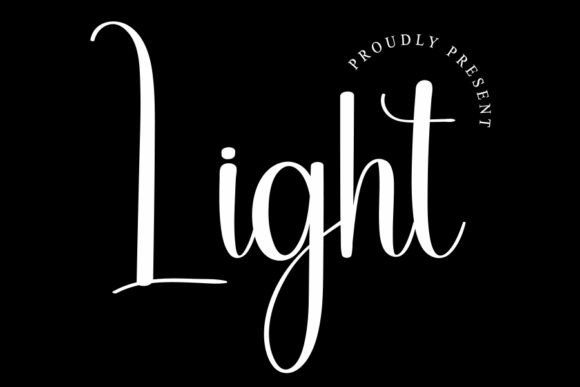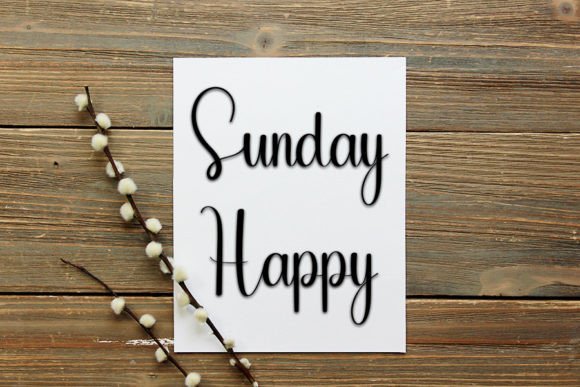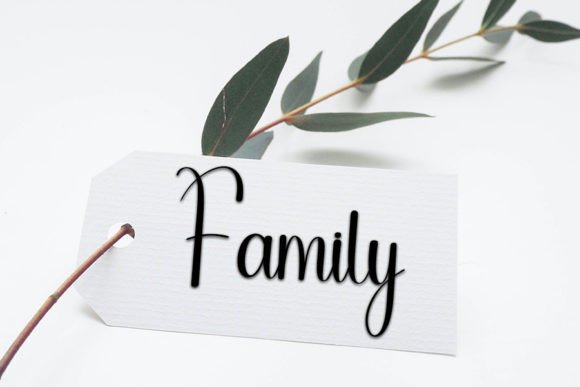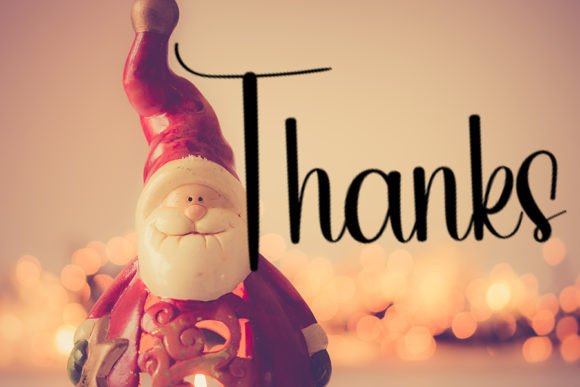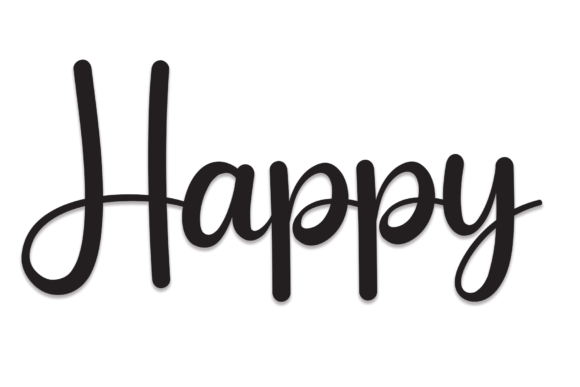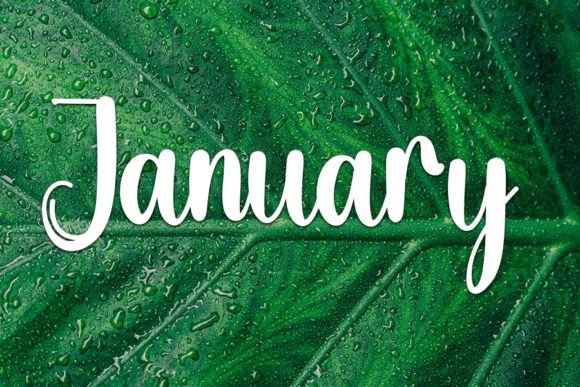
Light Font
A Captivating Handwritten Typeface
Light Font is a captivating and elegant handwritten script that brings a touch of beauty and sophistication to your projects. With its distinct and timeless style, it’s perfect for creating stunning designs that leave a lasting impression.
The Elegance of Light
The elegance of Light Font shines through in every letter. The font’s flowing strokes create a sense of fluidity and harmony. Its neat craftsmanship makes it an ideal choice for a variety of design projects. Whether you’re designing greeting cards or logos, Light adds a polished and refined touch to your work.
Perfect for Wedding Invitations
For wedding invitations, Light Font brings a personal and romantic touch. The font’s handwritten appearance evokes intimacy and warmth, setting the tone for a memorable celebration. Its elegant letterforms ensure your invitations will stand out with charm and sophistication.
Great for Greeting Cards
For greeting cards, thank-you notes, or other occasions, Light Font enhances your design with a sense of grace and elegance. Its friendly, flowing strokes convey warmth and joy, making it the perfect choice for personal messages. Whether for a birthday, holiday greeting, or thank-you card, this font brings a personal touch that your recipient will appreciate.
Ideal for Logos and Branding Materials
Light Font is also great for branding materials. Whether you’re creating a logo, business card, or website header, this font’s elegant style makes it ideal for professional designs. It brings a sense of class to your branding materials, ensuring they leave a memorable impression.
Perfect for Quotes and Typography Designs
For quotes and typography designs, Light Font adds visual appeal and impact. Whether you’re creating social media graphics, motivational posters, or print designs, its graceful letterforms enhance your words. It adds a unique touch that captures attention and elevates the overall design.
Versatile and Easy to Use
Despite its elegant design, Light Font is versatile and easy to use. It’s perfect for both print and digital media. Whether you’re working with headlines, captions, or body text, this font strikes the perfect balance between creativity and legibility.
Let Light Inspire Your Creativity
In summary, Light Font is a neat and beautiful handwritten typeface that exudes elegance and sophistication. With its distinct and timeless style, it’s perfect for a wide range of design projects. Whether you’re creating wedding invitations, logos, quotes, or branding materials, Light Font helps you create spectacular designs that captivate and inspire your audience.